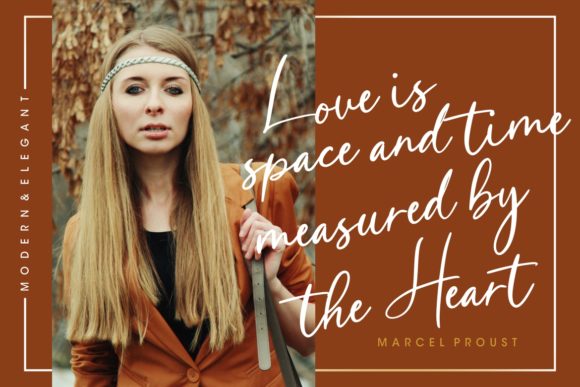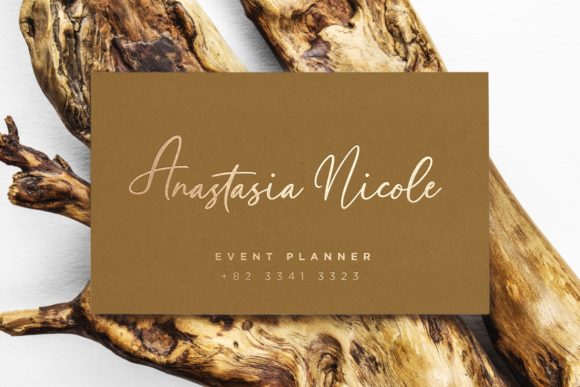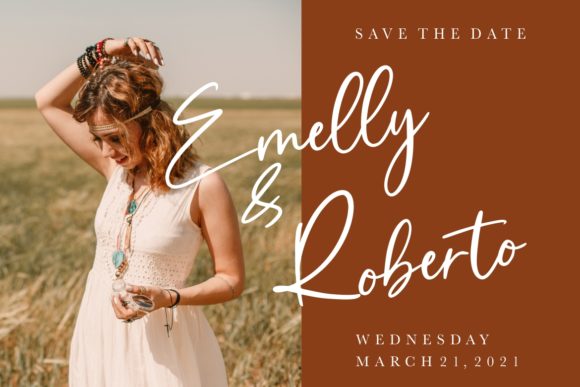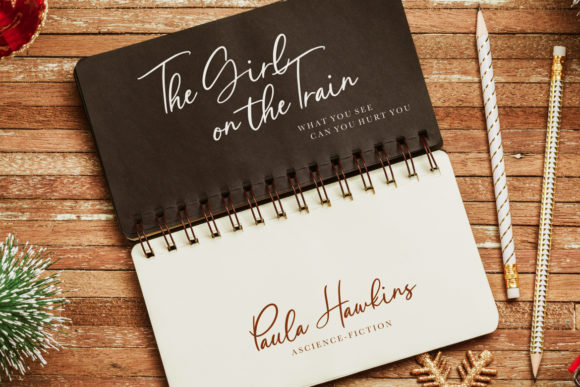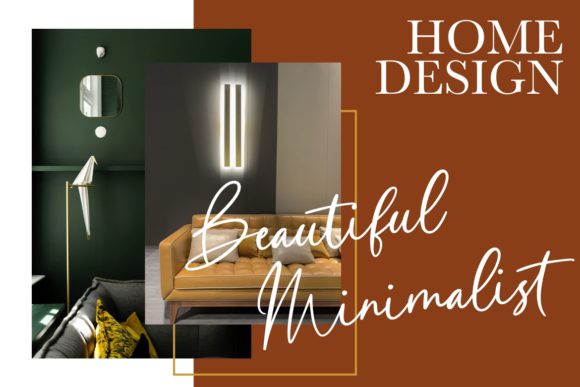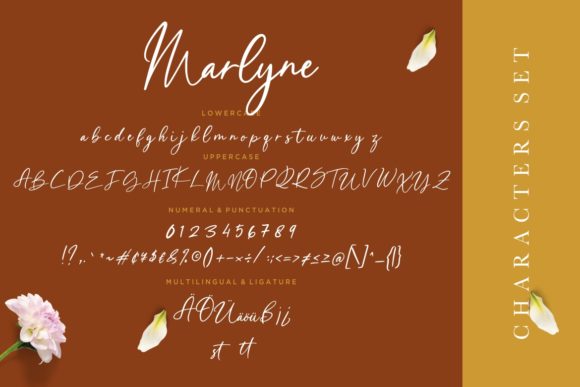
Introduction to Marlyne Font Font
Fonts play a crucial role in design, and the Marlyne Font font is a typeface that brings both character and versatility to any project. Whether you’re working on a branding project, a website, or a print design, the Marlyne Font font offers a unique style that can elevate your work.
Marlyne is a lovely and flowing handwritten font.
It maintains its classy calligraphic influences while feeling contemporary and fresh Fall in love with this font and bring your projects to the highest levels.
The Marlyne Font font is more than just a typeface – it’s a design tool that helps you communicate your message with style and clarity. Its unique character set and versatile design make it suitable for a wide range of applications, from elegant invitations to bold headlines.
With its carefully crafted letterforms and balanced proportions, the Marlyne Font font ensures readability and visual appeal across all mediums.
What makes Marlyne Font font special?
The Marlyne Font font stands out with its unique design, exceptional readability, and versatility across various design applications.